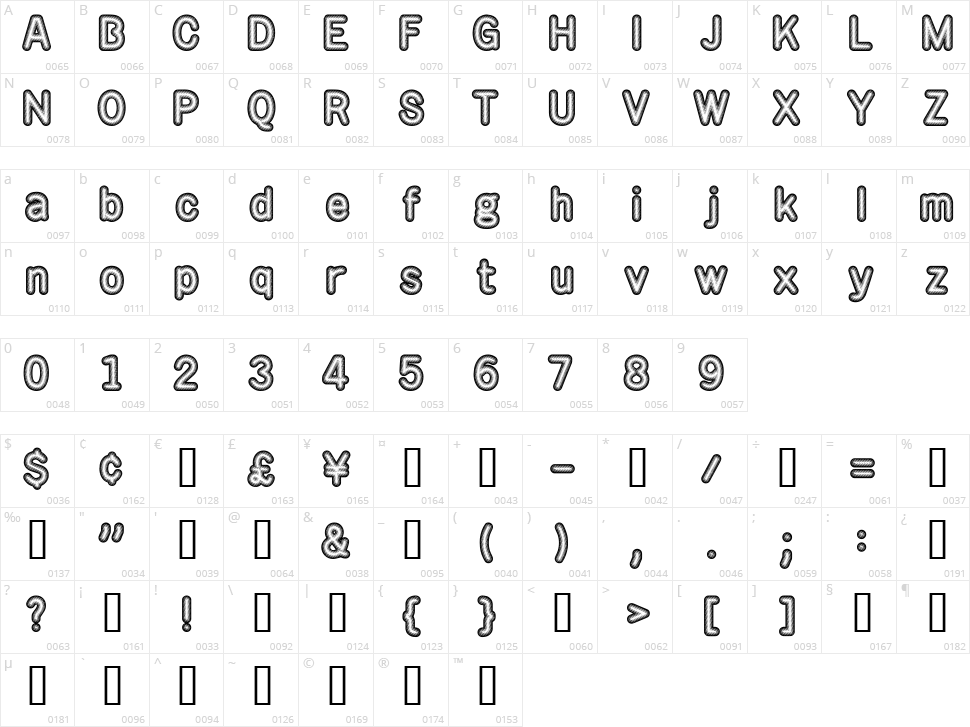
Rotondo
RotondoSilver v1.21995 by Rafael Dinner
RotondoSilver is meant to be a 3-D display font to grab attention or just look slick. You will find that RotondoSilver maintains accuracy at very high resolutions, and does so with minimum complexity of paths (=minimum disk space and RAM needed).